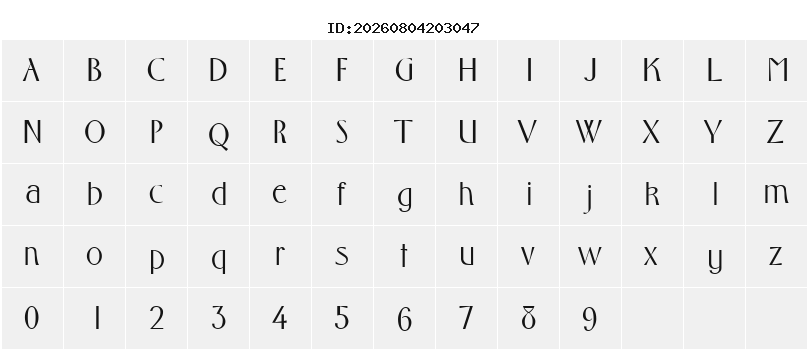
NewRix Preview
• Font Name: NewRix
• Font Style: Fancy
• Font ID: Altsys Fontographer 4.0.3 NewRix Fancy
• Full Font Name: NewRix Fancy
• Version: Altsys Fontographer 4.0.3 05.06.1994
• PostScript Name: NewRixFancy
About NewRix.ttf
NewRix.ttf is a modern, elegant sans-serif font designed for ultimate readability and visual harmony. Perfect for branding, headlines, web design, and print materials.